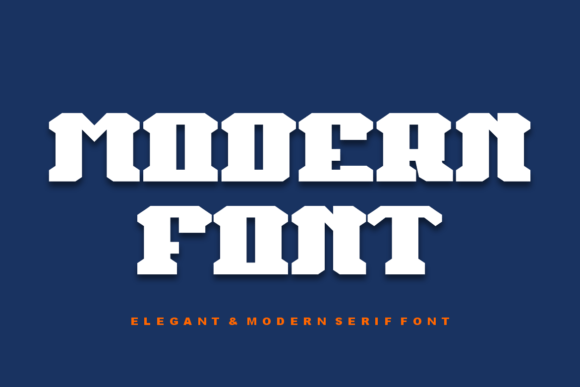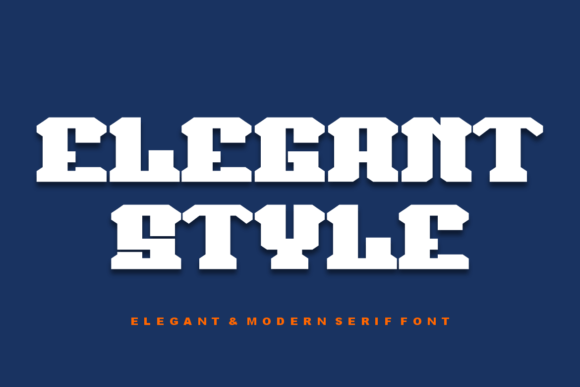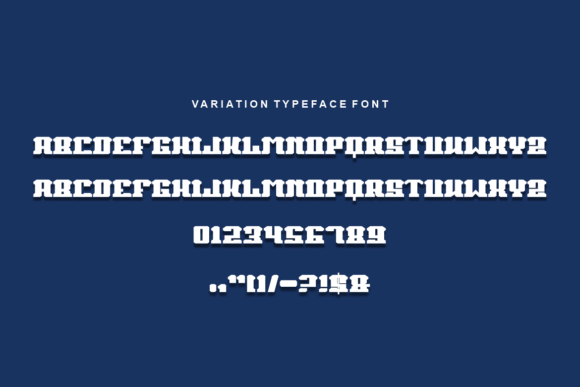
Introduction to Gasony Font
Gasony is a cool and bold display font.
With its futuristic vibe, this font is perfect for a wide range of modern projects .